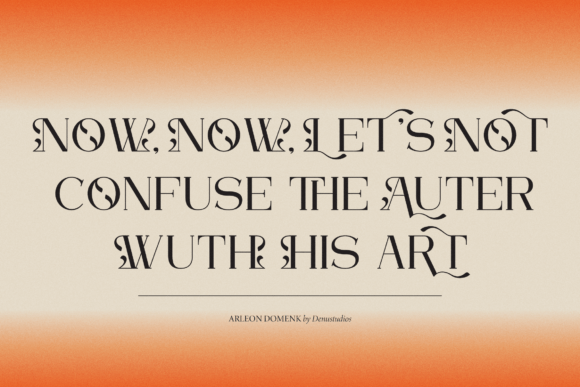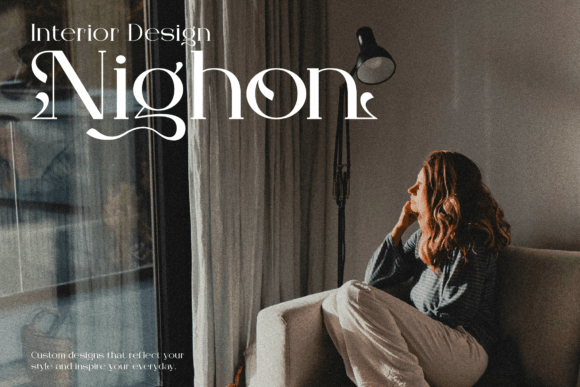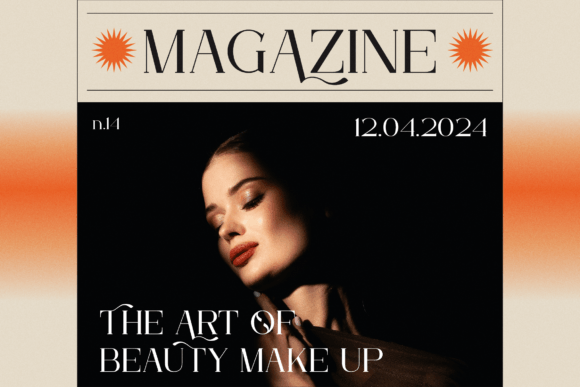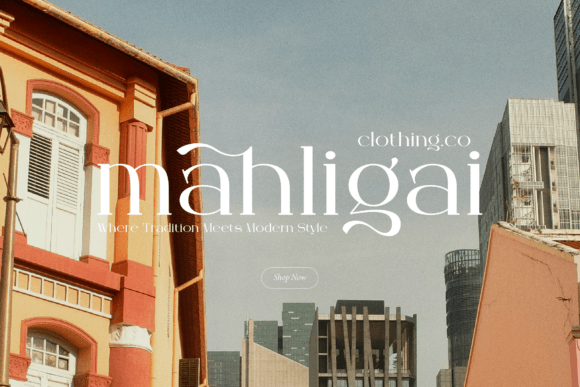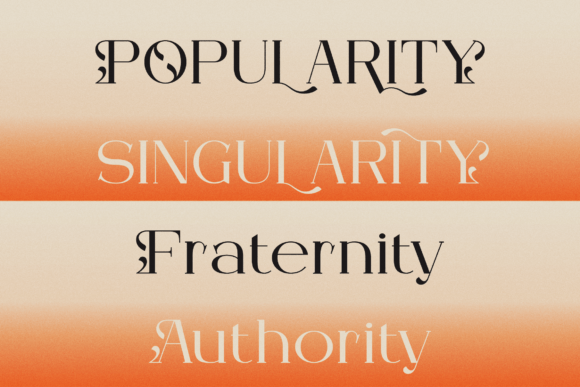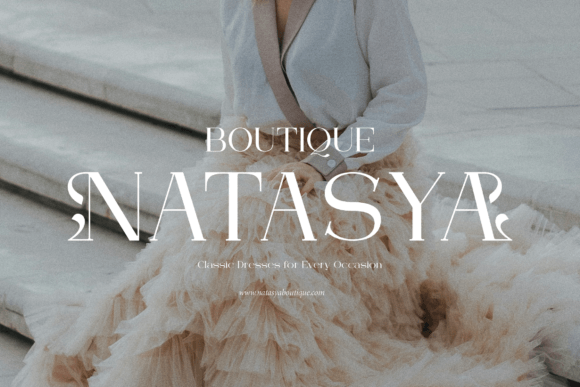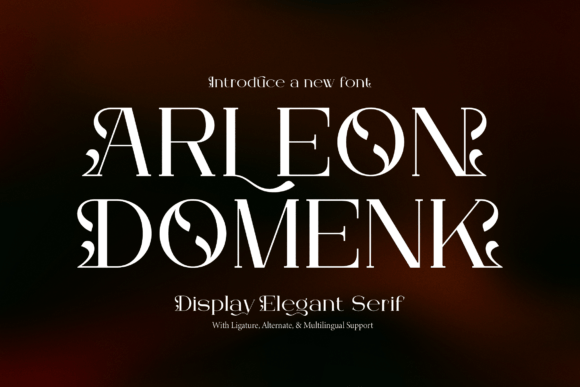
Introducing Arleon Domenk Font: Elevate Your Designs with Elegance
Are you looking for a serif font that exudes elegance and sophistication for your design projects? Look no further than Arleon Domenk Font. This stunning serif font is perfect for designers and crafters seeking to add a touch of luxury to their creations. In this article, we’ll explore the features and benefits of Arleon Domenk Font, and how it can elevate your designs to the next level.
What is Arleon Domenk Font?
Arleon Domenk Font is a beautifully crafted serif font, designed to bring a sense of refinement and poise to any project. Its classic and timeless design makes it suitable for a wide range of applications, from logos and branding projects to homeware designs, product packaging, and more.
Key Features of Arleon Domenk Font
• Elegant Serif Design: Arleon Domenk Font boasts a stunning serif design, perfect for adding a touch of sophistication to your projects.
• Versatile: This font is suitable for a wide range of projects, including logos, branding projects, homeware designs, product packaging, mugs, quotes, posters, shopping bags, t-shirts, book covers, and more.
• High-Quality: Arleon Domenk Font is a high-quality font, designed to deliver crisp and clear results, even at small sizes.
Benefits of Using Arleon Domenk Font
So, why choose Arleon Domenk Font for your design projects? Here are just a few benefits of using this stunning serif font:
• Adds Elegance and Sophistication: Arleon Domenk Font brings a level of elegance and sophistication to your designs, perfect for luxury brands and high-end products.
• Enhances Readability: The clear and classic design of Arleon Domenk Font makes it easy to read, even at small sizes.
• Increases Versatility: With its wide range of applications, Arleon Domenk Font is a versatile addition to any designer’s toolkit.
Project Ideas Using Arleon Domenk Font
Arleon Domenk Font is perfect for a wide range of design projects, including:
• Logos and Branding Projects: Create a lasting impression with a custom logo or branding project featuring Arleon Domenk Font.
• Homeware Designs: Add a touch of elegance to your homeware designs, such as stationery, wall art, and decorative items.
• Product Packaging: Elevate your product packaging with Arleon Domenk Font, perfect for luxury brands and high-end products.
• Mugs and Apparel: Create stunning mugs, t-shirts, and other apparel featuring Arleon Domenk Font.
• Posters and Quotes: Make a statement with eye-catching posters and quotes featuring Arleon Domenk Font.
Tips for Using Arleon Domenk Font
Here are a few tips for getting the most out of Arleon Domenk Font:
• Experiment with Font Sizes: Arleon Domenk Font looks great at a range of font sizes, from large headings to smaller body text.
• Pair with Other Fonts: Try pairing Arleon Domenk Font with other fonts to create a unique and eye-catching design.
• Use for Headings and Titles: Arleon Domenk Font is perfect for headings and titles, adding a touch of elegance and sophistication to your designs.
In conclusion, Arleon Domenk Font is a stunning serif font that can elevate your designs to the next level. With its elegant design, versatility, and high-quality craftsmanship, it’s perfect for a wide range of projects, from logos and branding projects to homeware designs and product packaging. Whether you’re a designer or crafter, Arleon Domenk Font is a great addition to your toolkit.